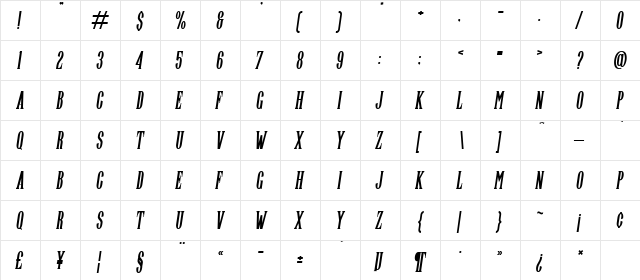
Highwind Italic
| Foundry | Twicolabs Fontdation |
| Designer | Twicolabs Fontdation |
Design Context for Highwind Typeface
Highwind takes a measured approach to typography — its balanced proportions and neutral character make it a reliable workhorse for both digital and print work. The slanted form adds forward momentum and visual energy.
Pro Tip: Try Highwind for annotation and caption copy alongside an upright companion — the contrast in angle creates a dynamic but ordered typographic system.